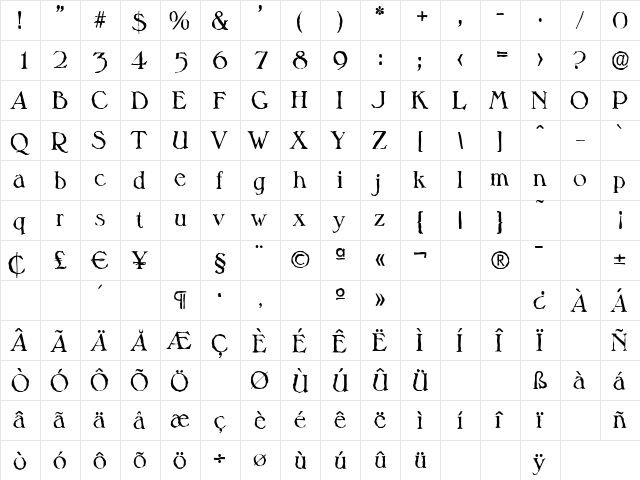
MelbourneAntique Regular
Design Context for MelbourneAntique Typeface
MelbourneAntique has the warm character of retro typography — evoking diners, record sleeves, and the golden age of print advertising.
Ideal for diner signage, record shop branding, 70s/80s-themed projects, and heritage product labels.
Font Pairing: Combine MelbourneAntique with a simple slab or neutral sans — period-accurate companions reinforce the vintage feel without competing for attention.
Pro Tip: Lean into MelbourneAntique's period character by pairing it with aged paper textures, muted colour palettes, and vintage illustration styles.